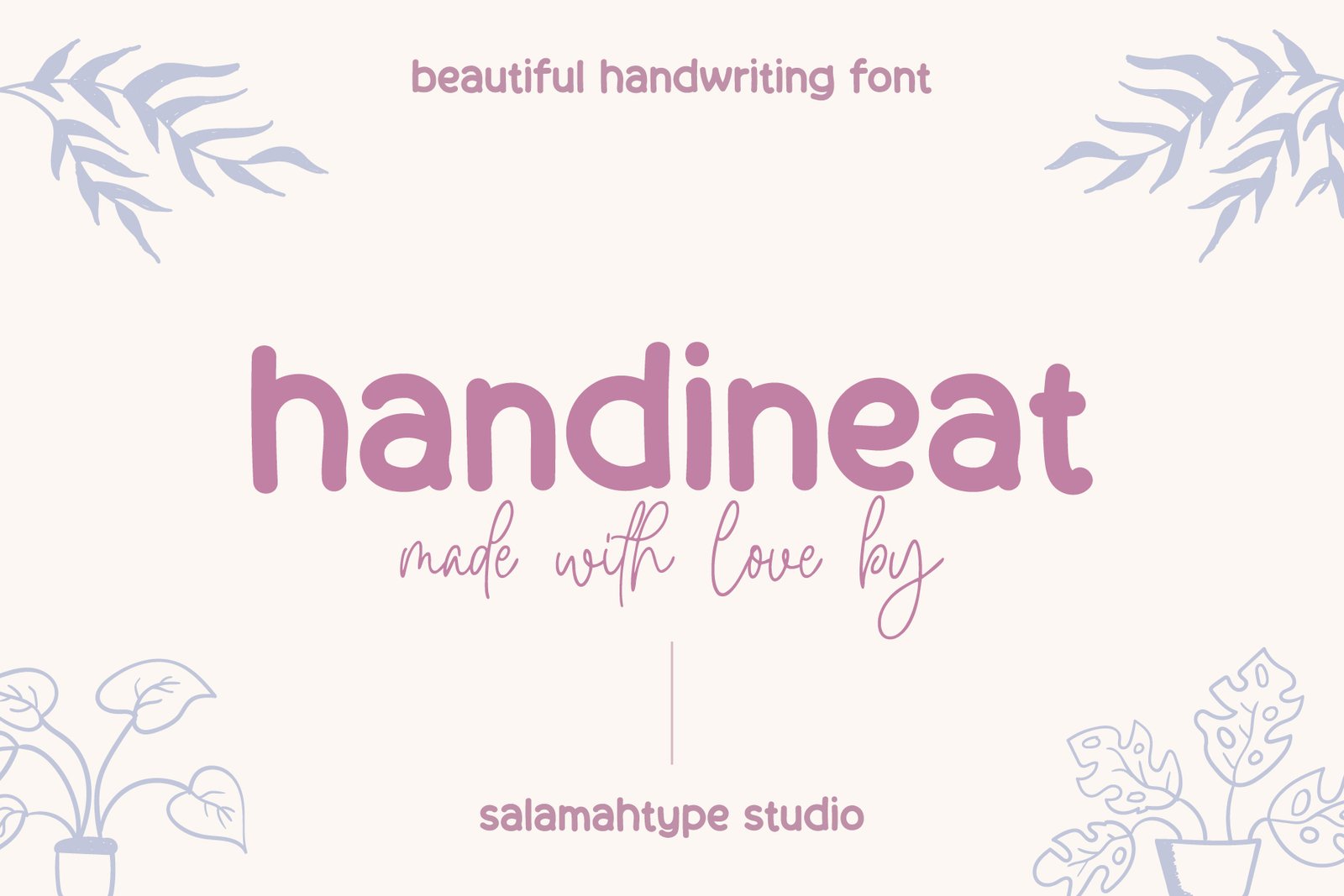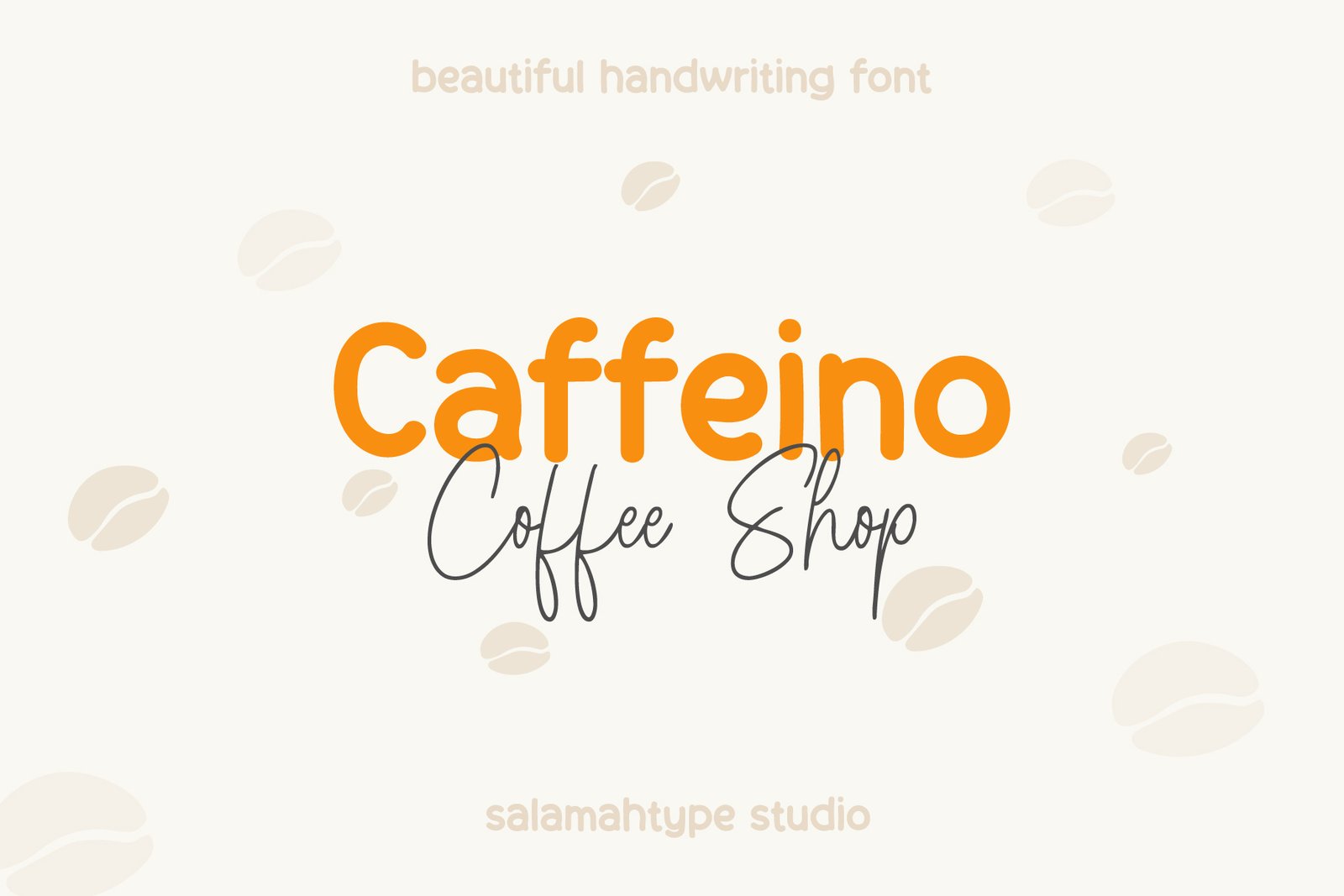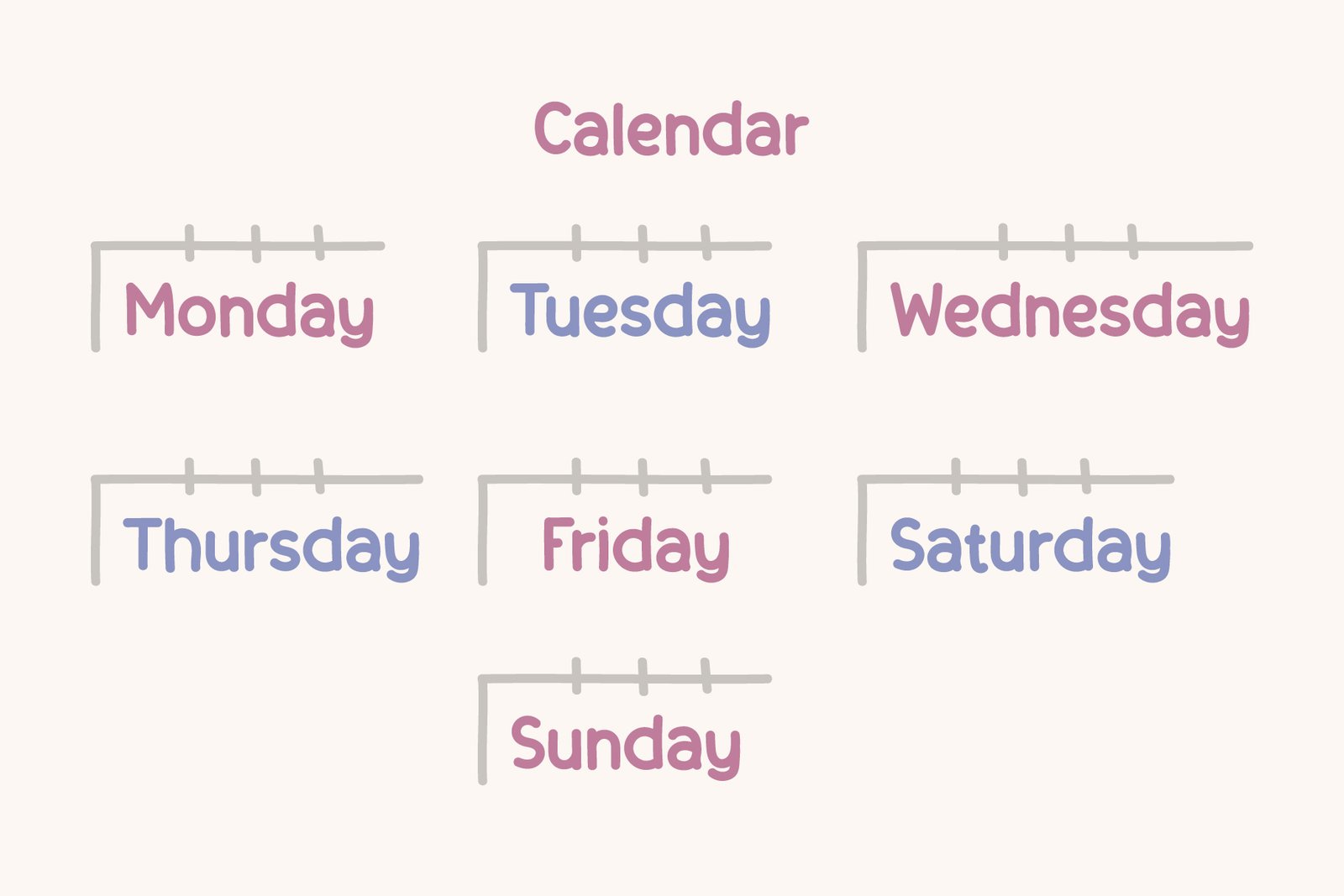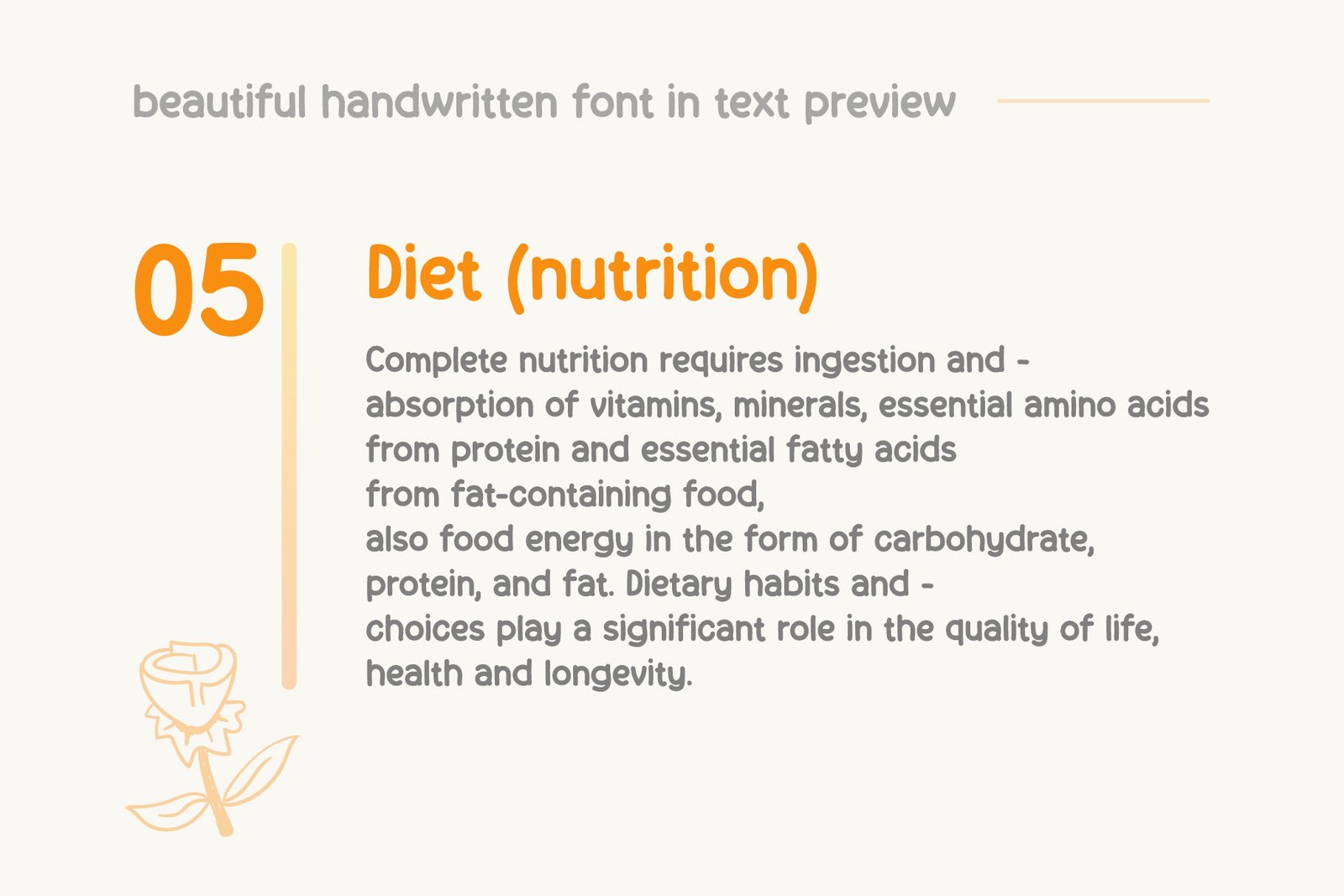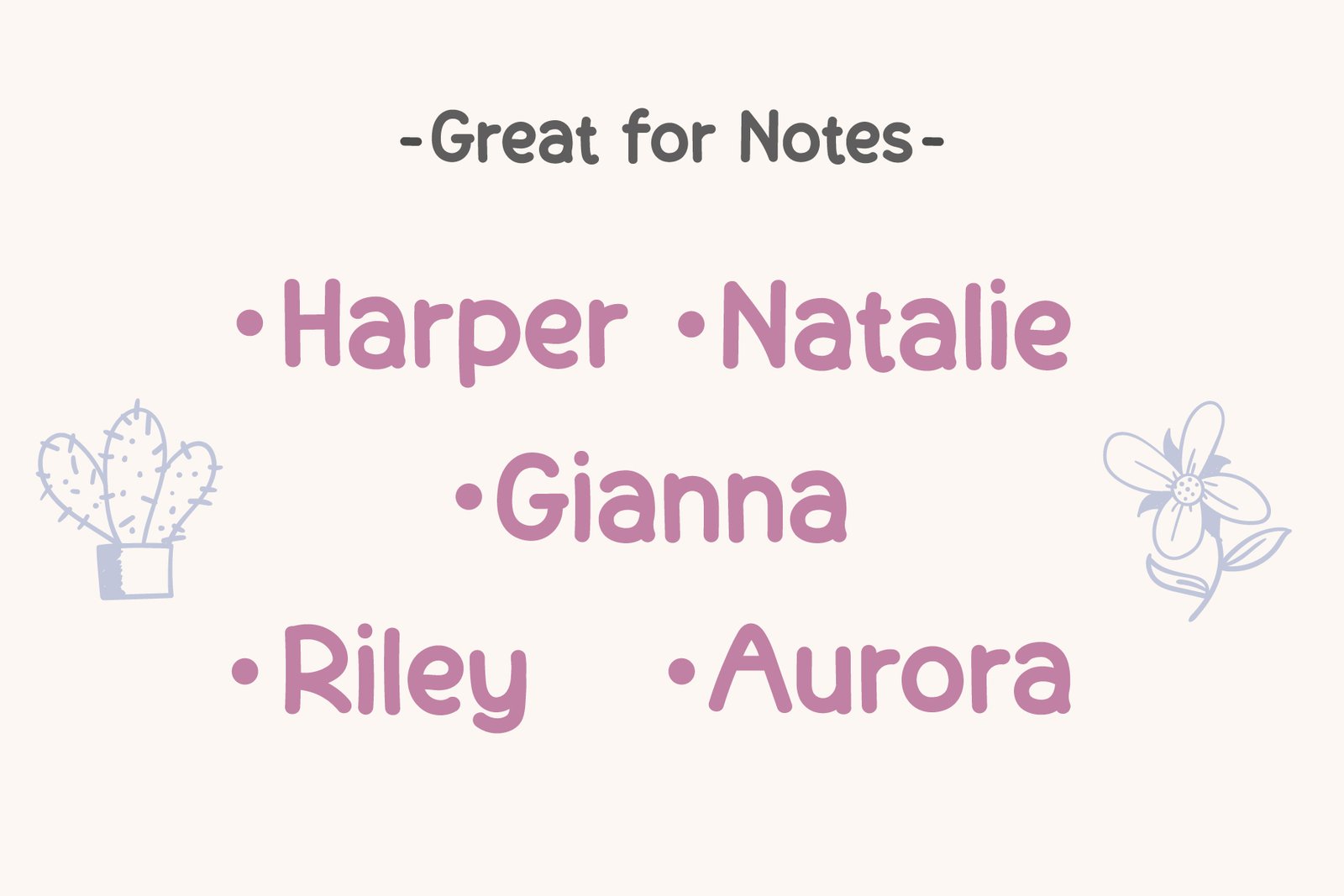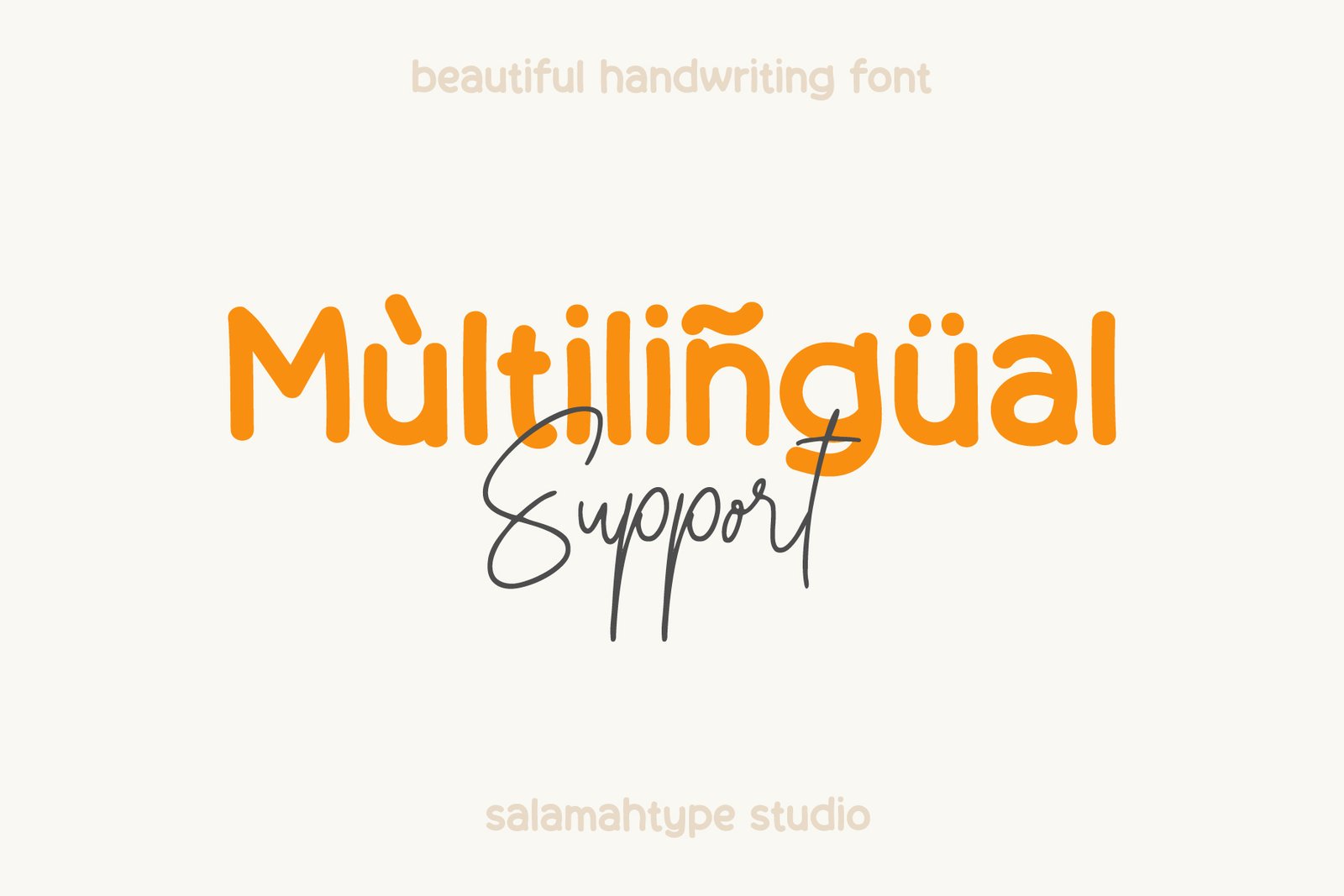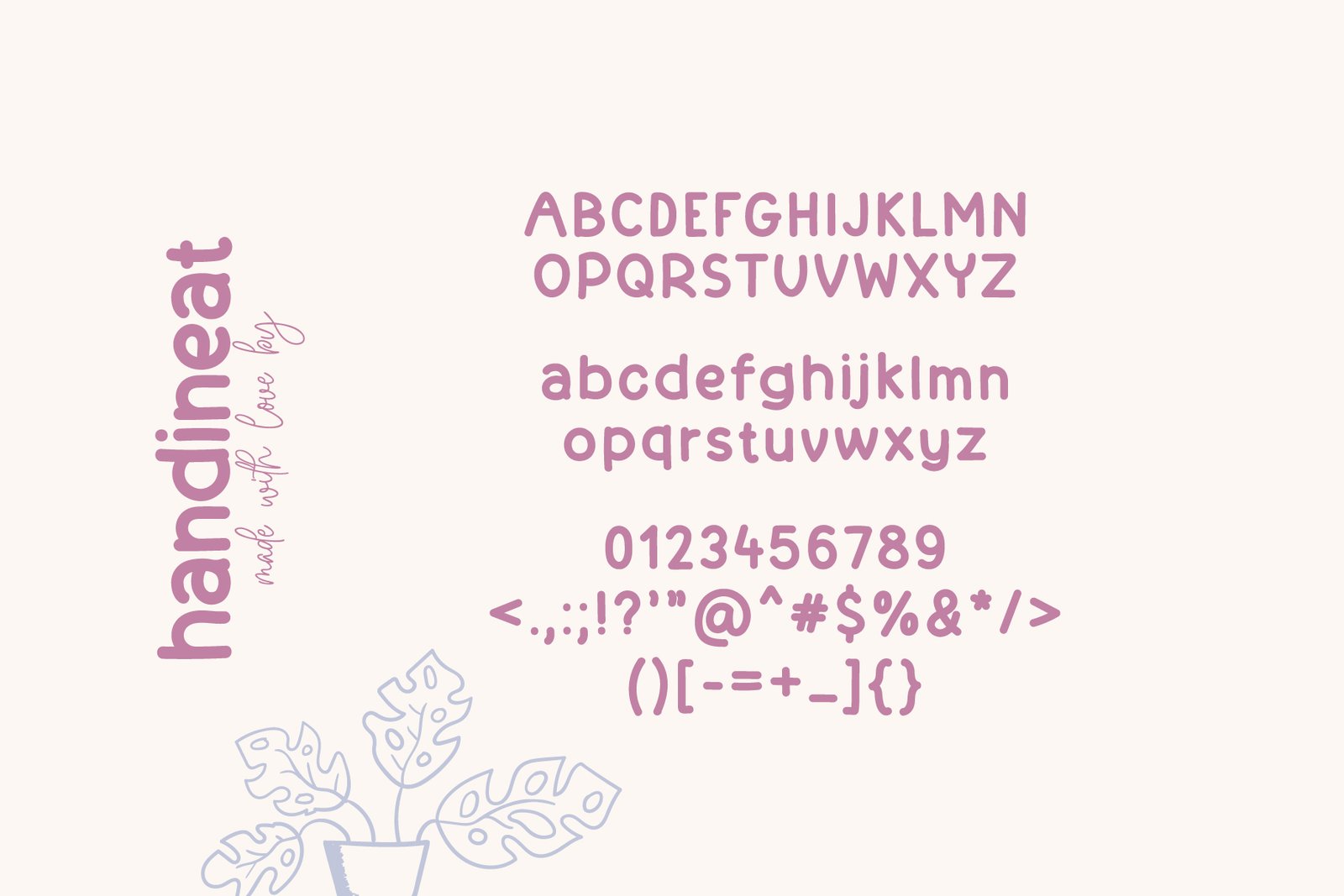
Handineat Handwriting Font Preview
Handineat Handwriting Font
About the Font
Introducing our font "Handineat" is a simple and neat handwritten note-taking font. You can use this font for logos, branding projects, digital planners, invitations, digital bullet journal, greeting cards, planners, photo albums, decorations and much more.